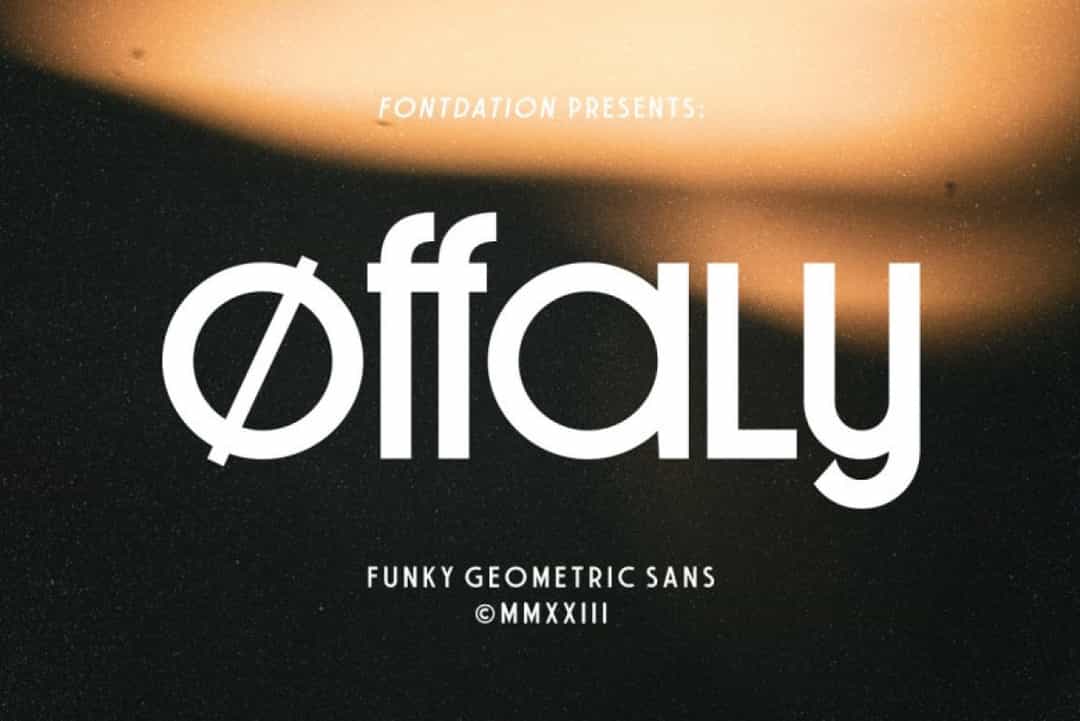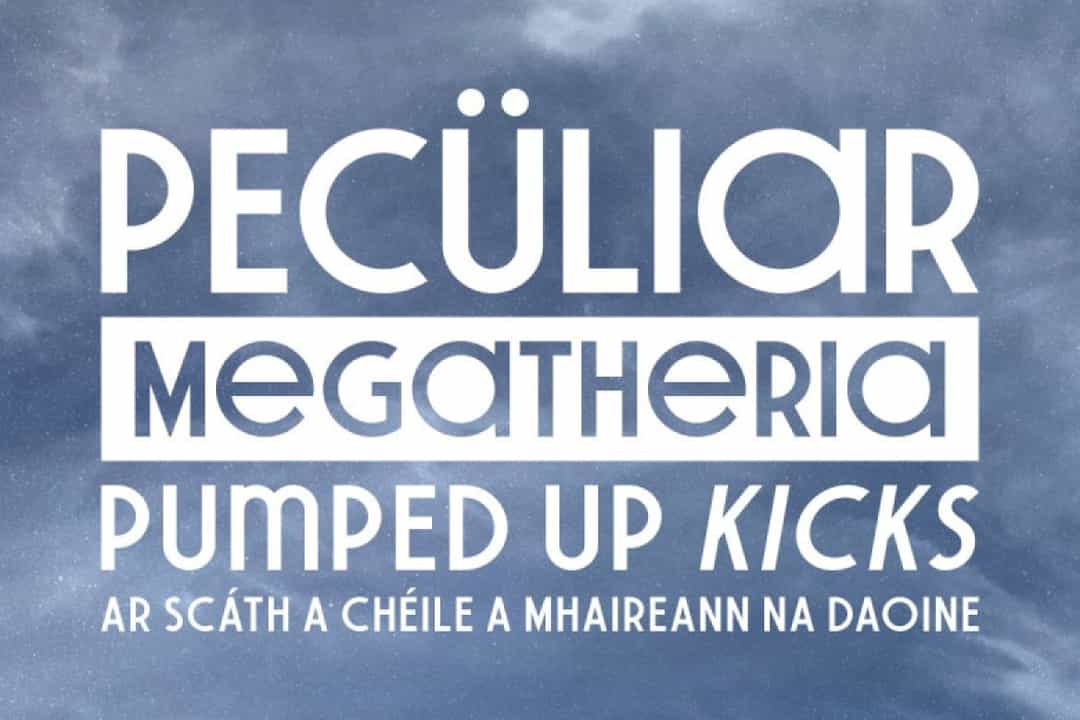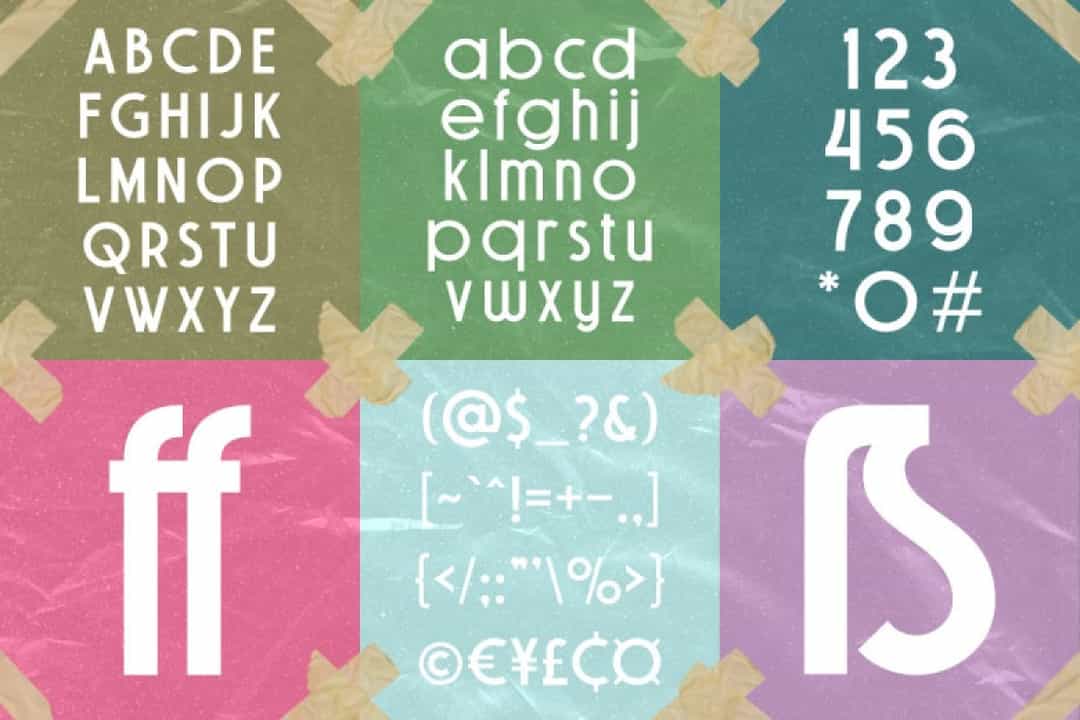
Offaly is an exciting geometric sans serif font with clean and smooth aesthetic. Combine lowercase letters to form harmonious letters. Offaly works best as branding, headline, quote, poster design font.